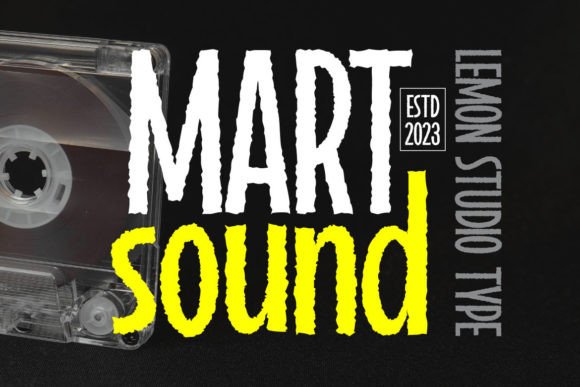
Introducing the Martsound Font, a remarkable display font that will take your designs back in time with its timeless charm. Inspired by the captivating aesthetics of classic fonts, Martsound adds a distinctively modern twist with its chiseled edges and dynamic curves.
Step into an era of nostalgia and elegance where your designs will resonate with a touch of the past. Martsound's chunky and distorted sans-serif characters evoke the grandeur of aged manuscripts, transporting you to a world of timeless artistry. Yet, it's not merely a relic; Martsound is a modern marvel that breathes new life into traditional forms.
With Martsound, you'll experience a symphony of versatility. Its bold and assertive presence makes it the perfect choice for commanding headings that demand attention. Unleash your creativity in branding projects, where Martsound's distinct personality will elevate your brand's identity to new heights.
Dive into the realm of graphic design, where Martsound's intricate details shine amidst mockups, posters, and other captivating visuals. This font is not just a tool; it's an artistic expression that will infuse your creations with a sense of history and sophistication.
Martsound is the epitome of nostalgia and innovation, a font that transcends time. Whether you're a seasoned designer or a creative enthusiast, Martsound empowers you to craft designs that whisper tales of the past while embracing the vibrancy of the present. Embrace the timeless beauty of Martsound today and unlock a world of design possibilities.